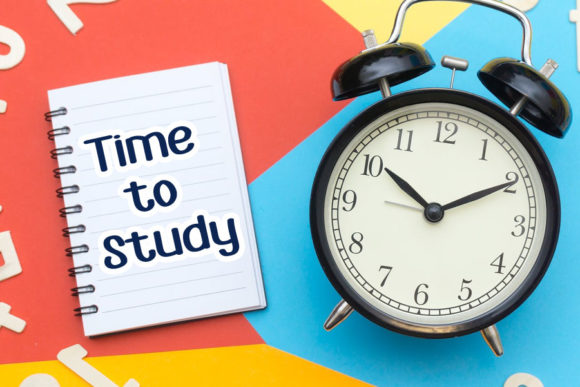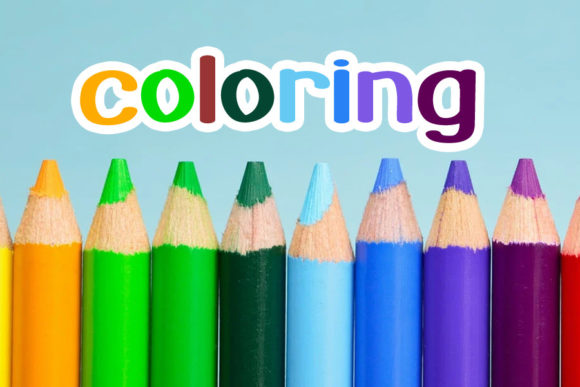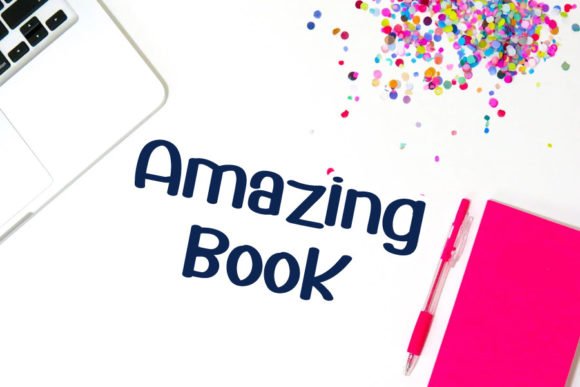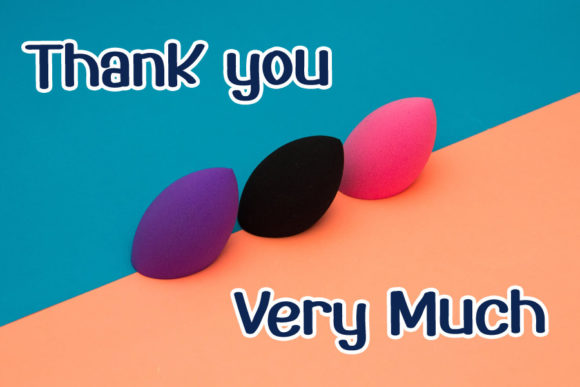
Happy School Font
About Happy School Font
Happy School is a clean and simple handwritten font. Whatever the topic, this font will be a wonderful asset to your font library, as it has the potential to enhance any creation.